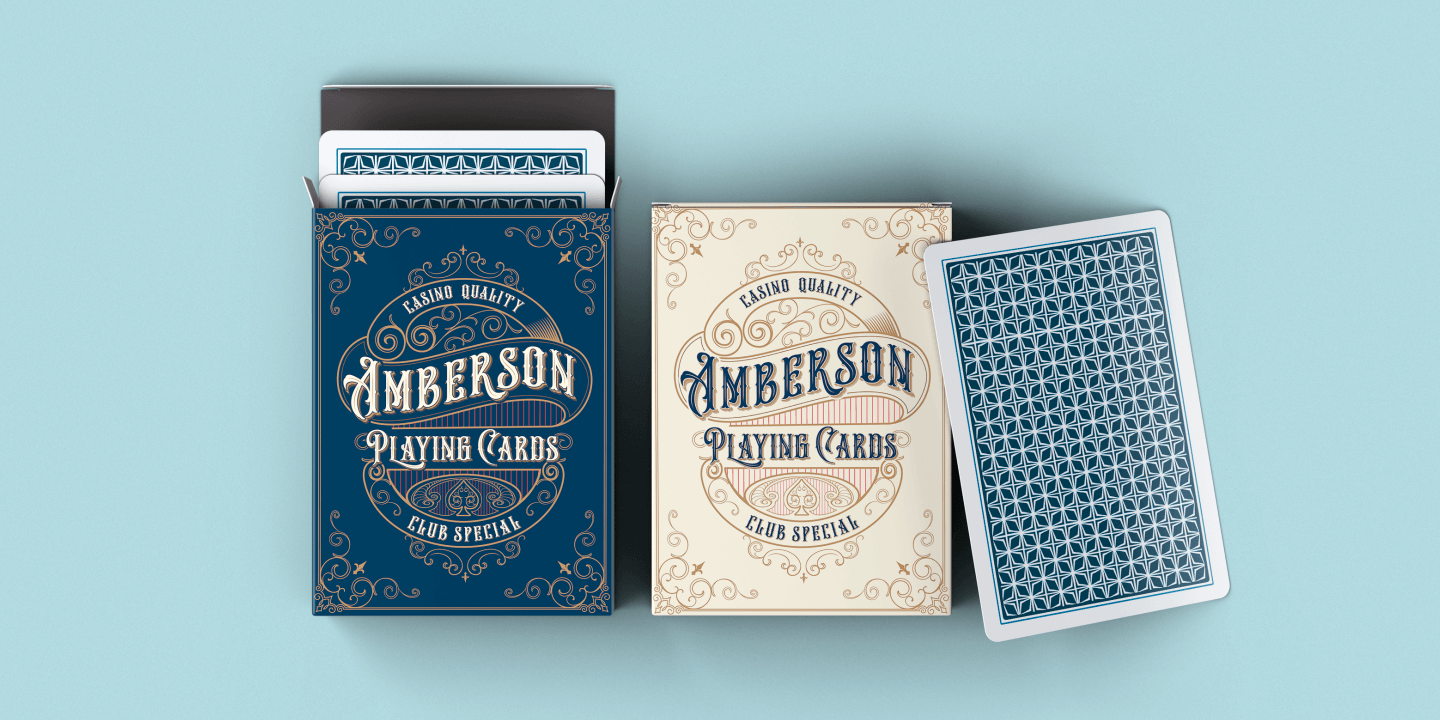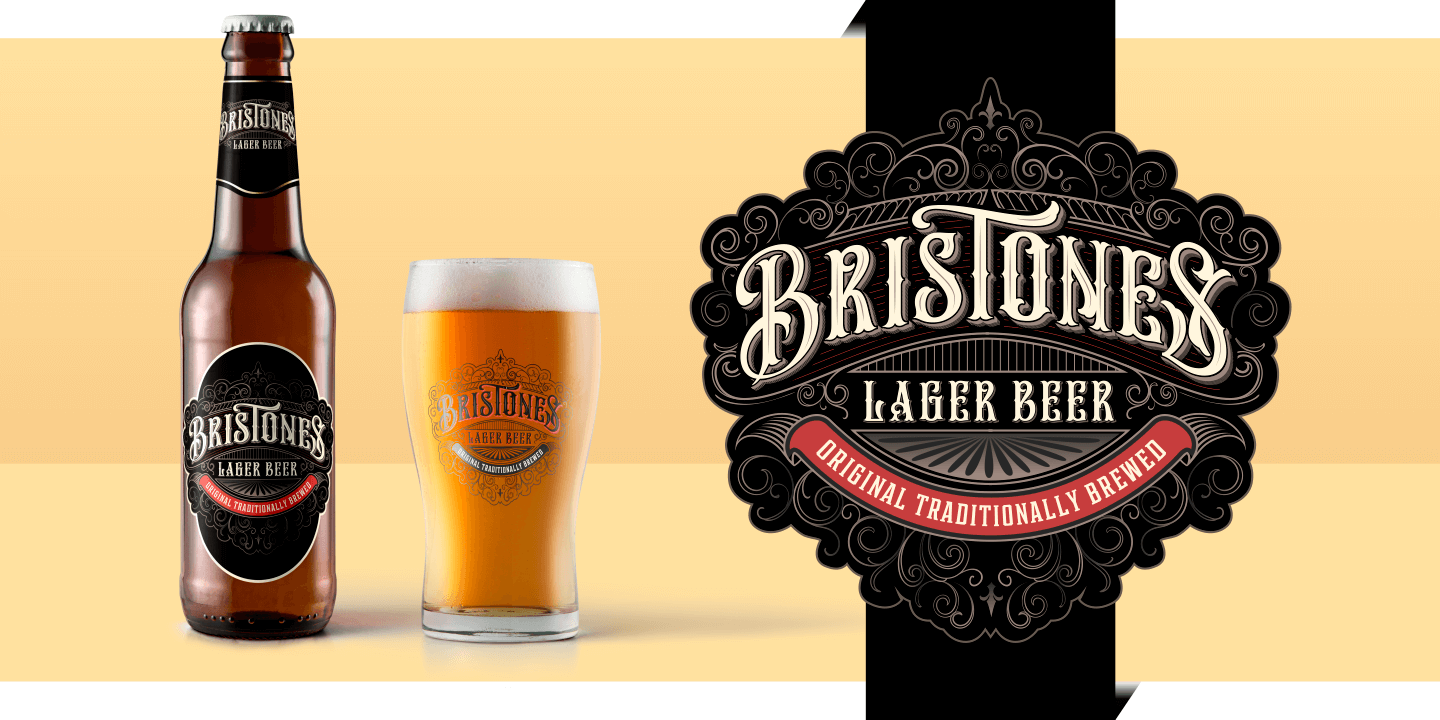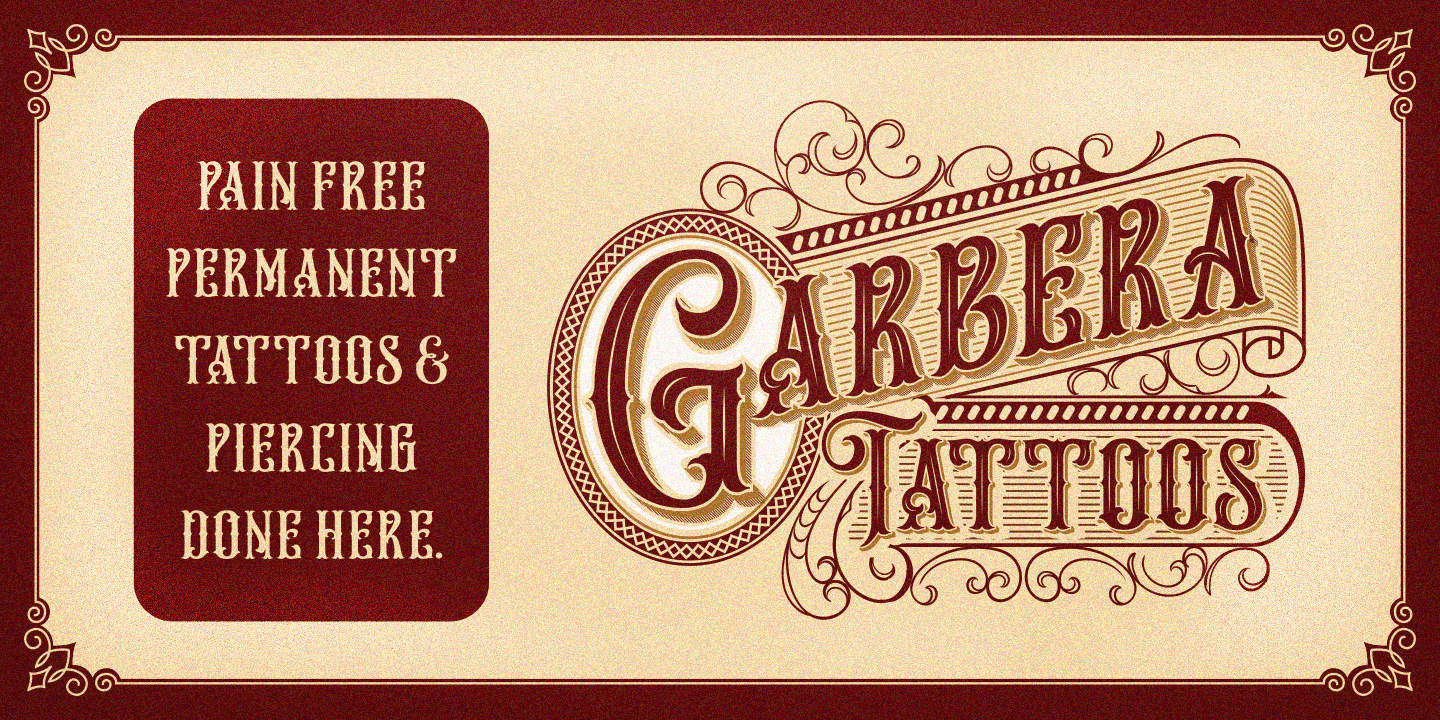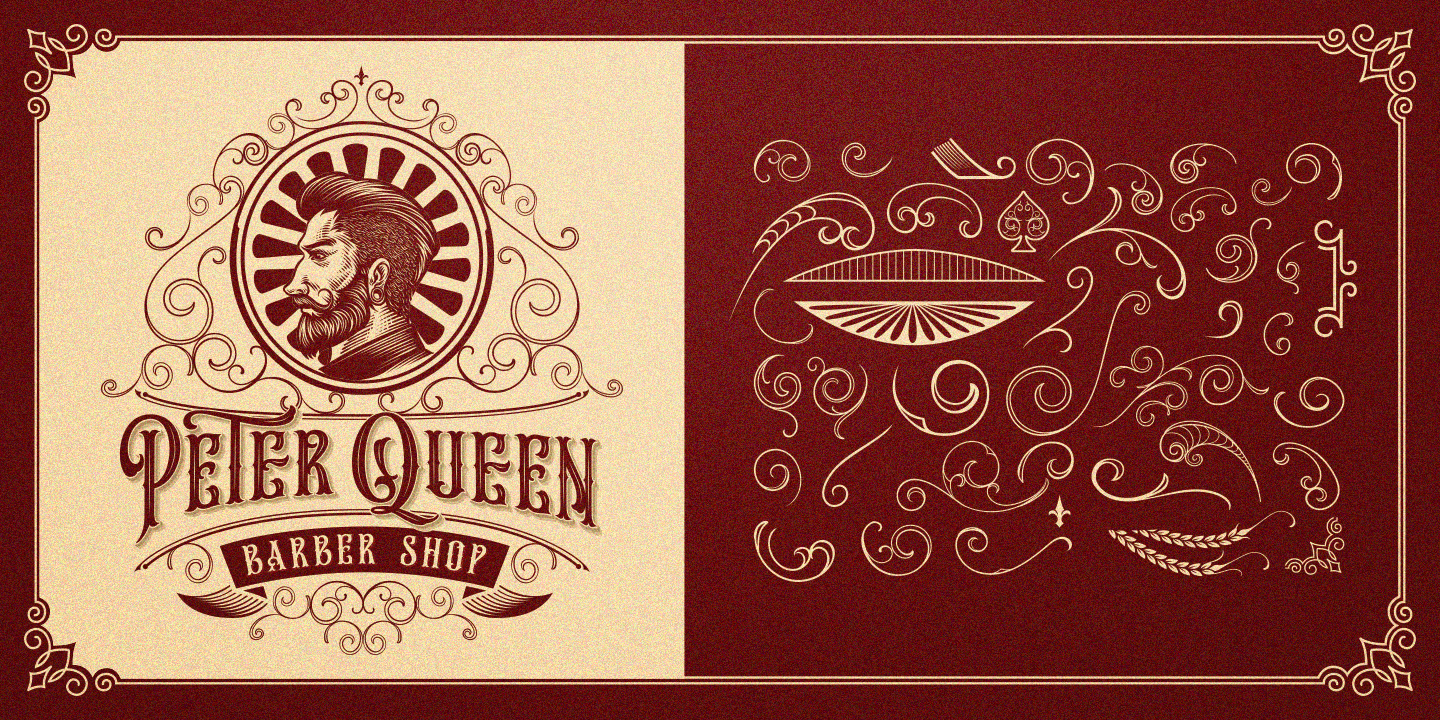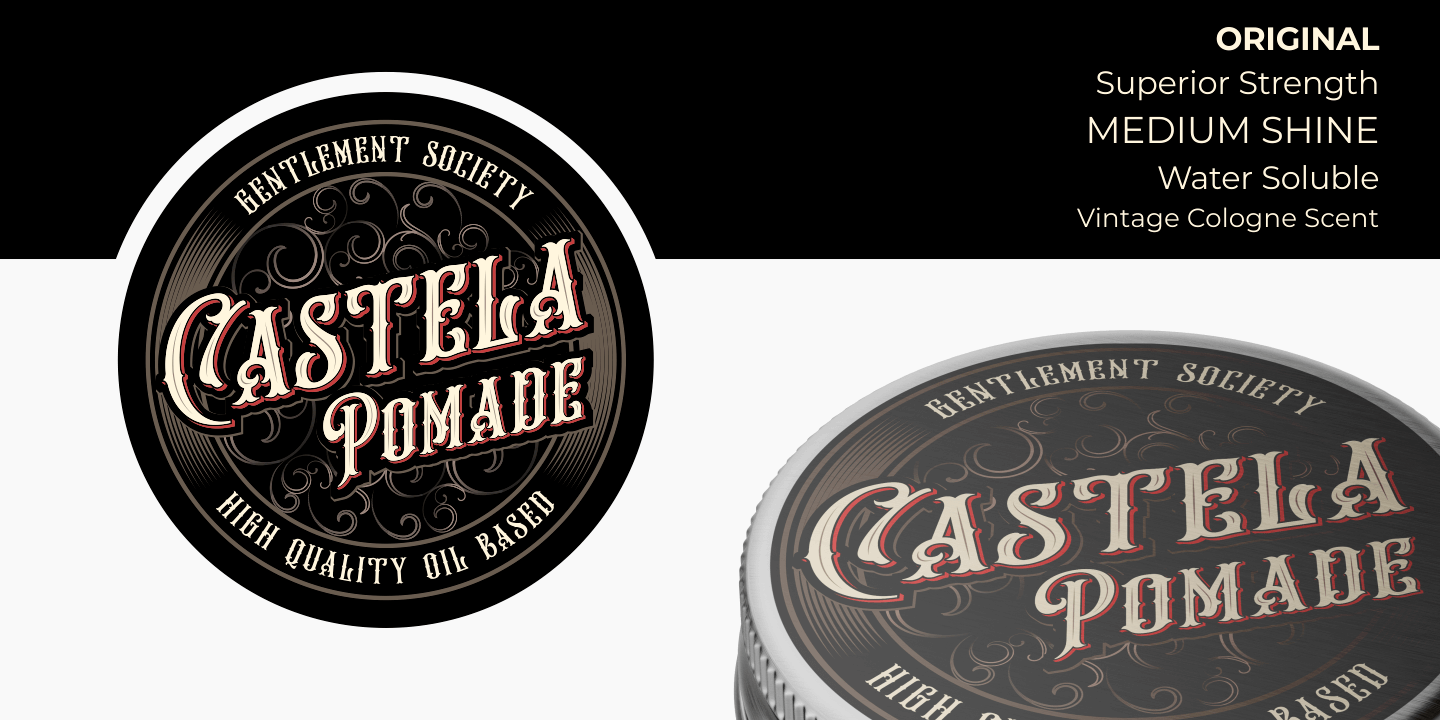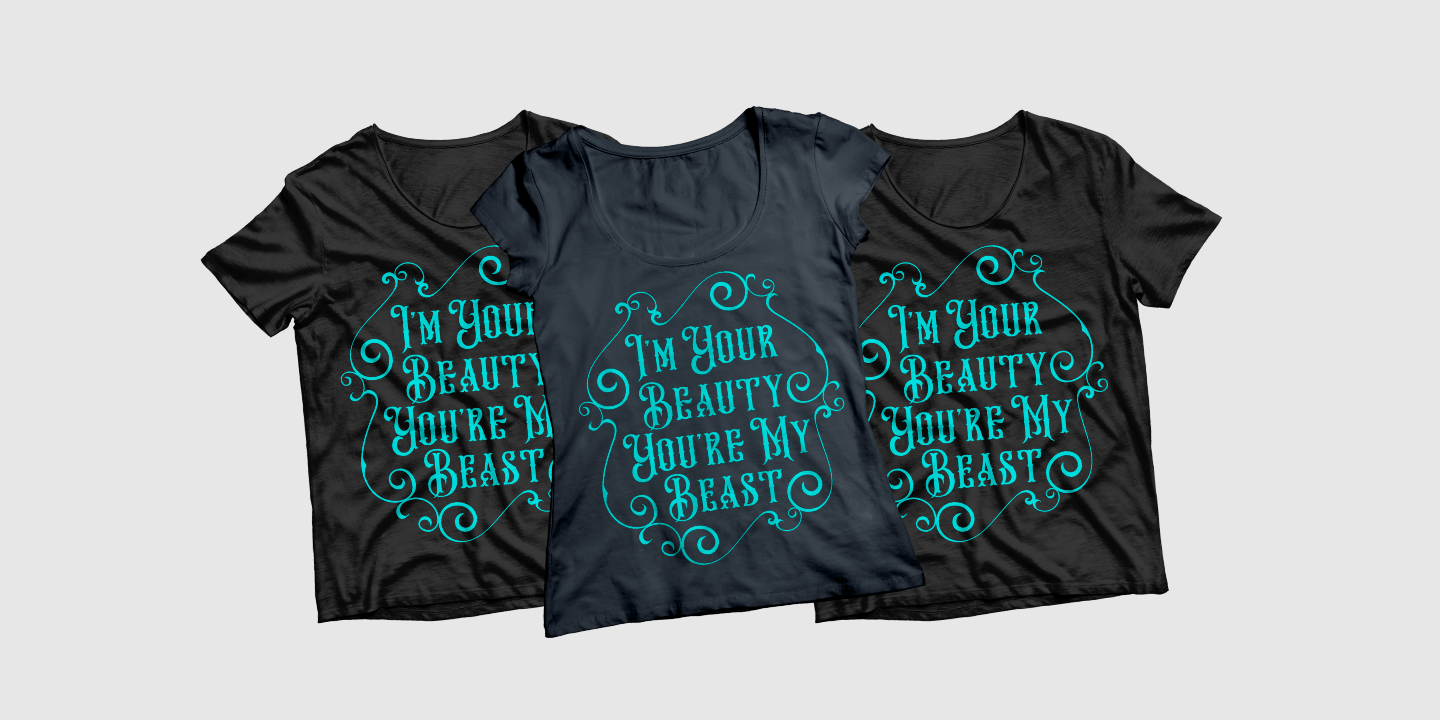
Send your artwork to the Victorian Age with Hungry Beast! Created by Bombas Type, this typeface is the perfect choice for branding, logos, T-shirts, emblems, badges, signs, labels and more. Free for personal use! For the commercial use please go here.